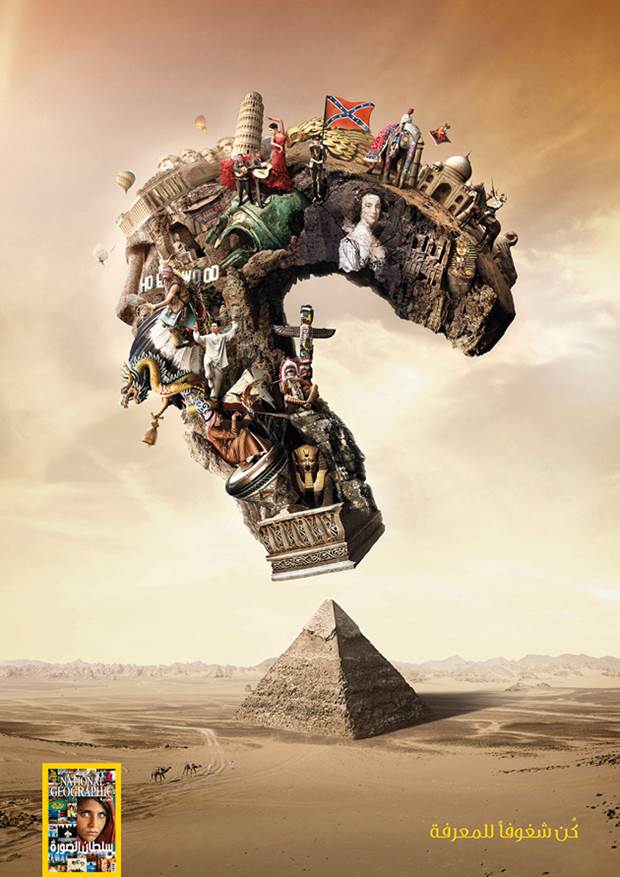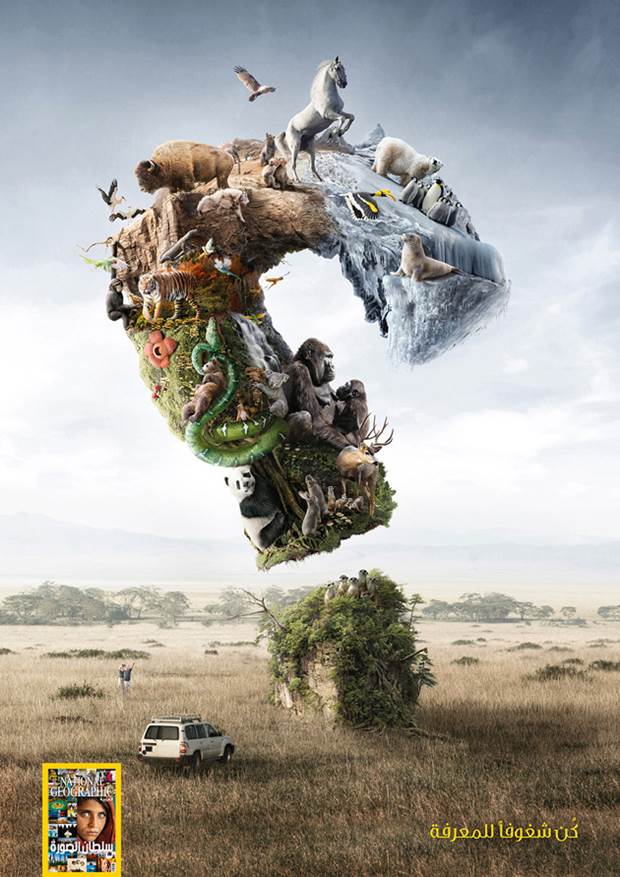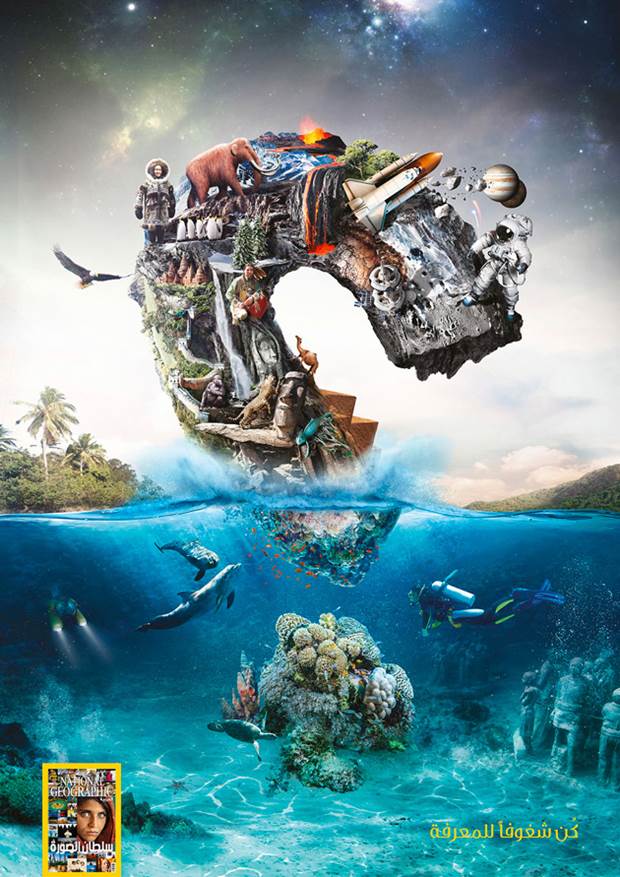
The new campaign of National Geographic
National Geographic launches its new advertising campaign to promote its monthly magazine. 'Stay Curious' is the main message of the campaign and this is emphasized by the usage of a huge questionmark which carries mixed flora, fauna and historical facts. Impressive and bold, the campaign highlights the plurality of the magazine and is designed by The Classic Partnership Advertising.